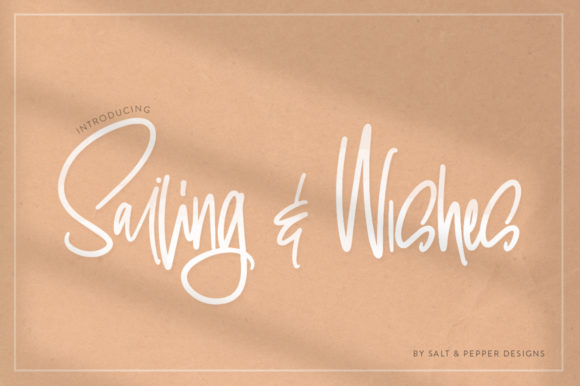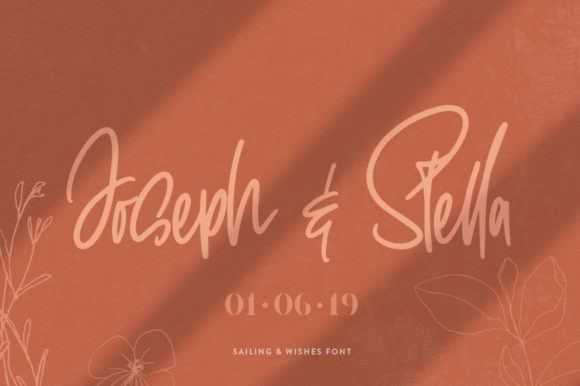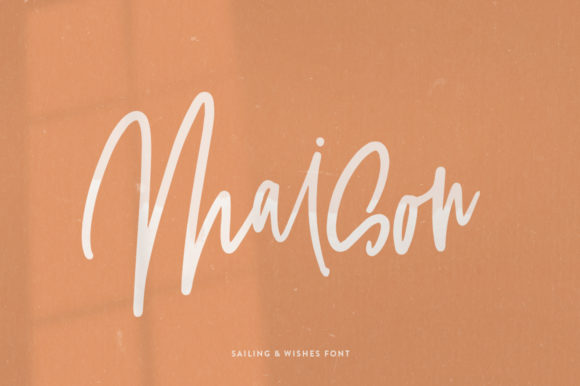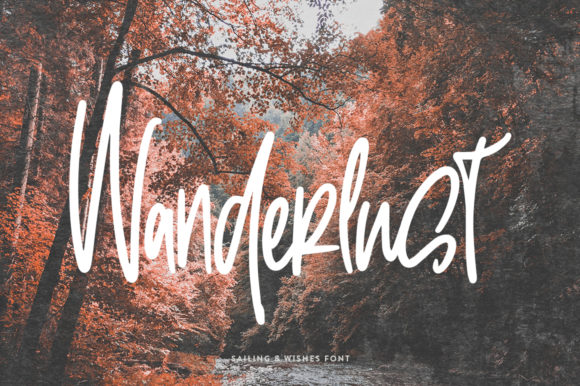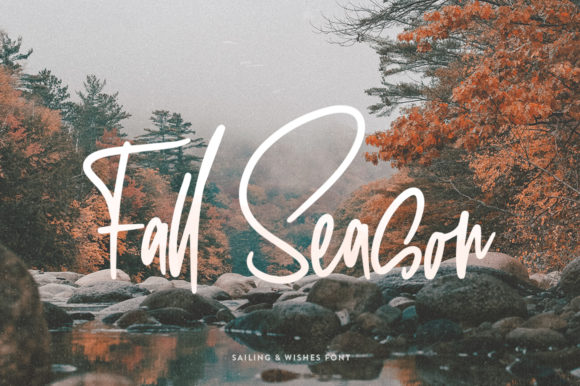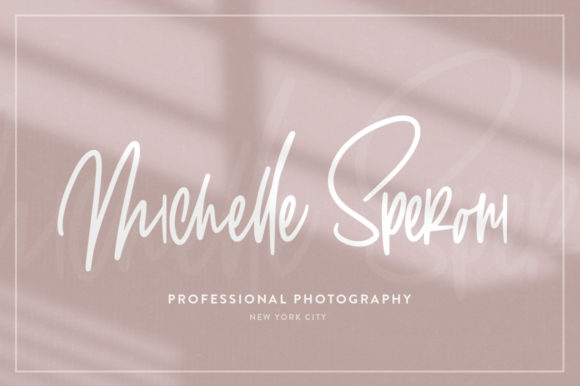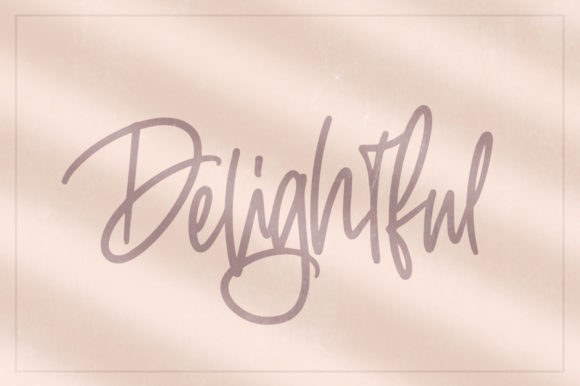
Sailing & Wishes Font
About Sailing & Wishes Font
Sailing & Wishes is a brand new handwritten font featuring flowing letters. It will add a romantic touch to any crafting project!